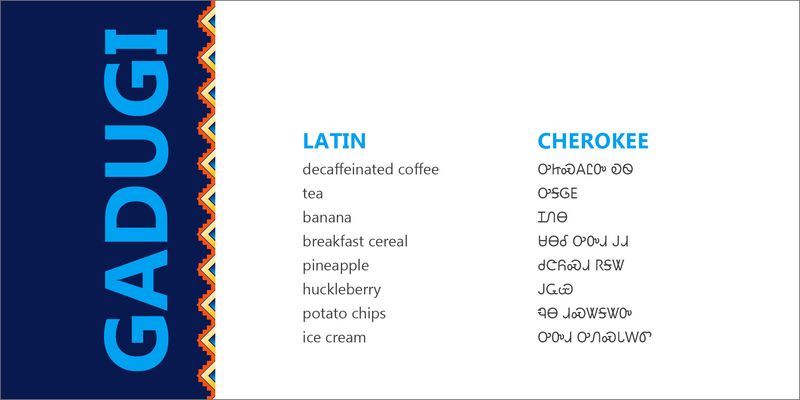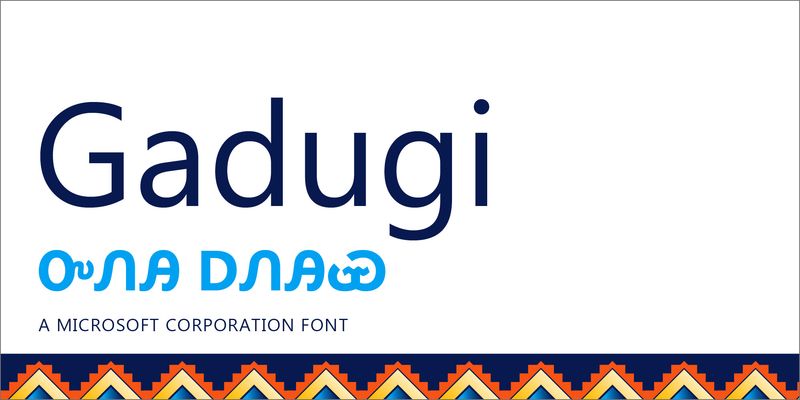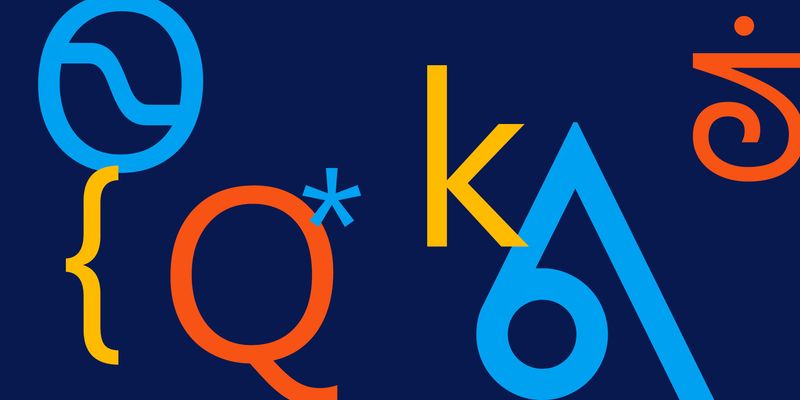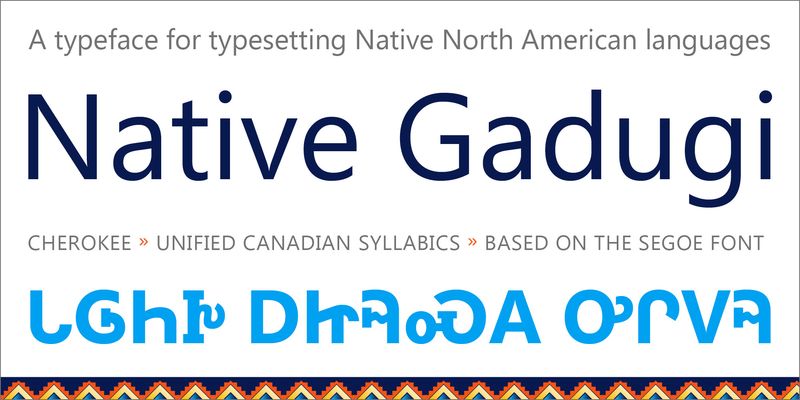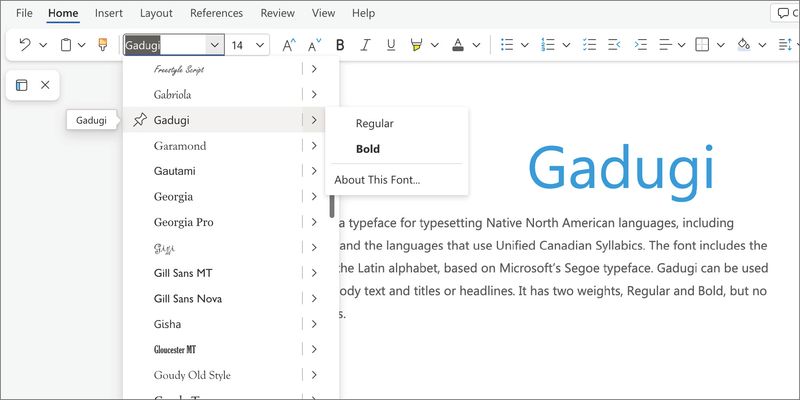
Gadugi is a typeface for typesetting Native North American languages, including Cherokee (ᏅᏁᎯ ᎠᏁᎯᏯ) and the languages that use Unified Canadian Syllabics. The font includes the letters of the Latin alphabet, based on Microsoft’s Segoe typeface. Gadugi can be used for both body text and titles or headlines. It has two weights, Regular and Bold, but no italic styles.